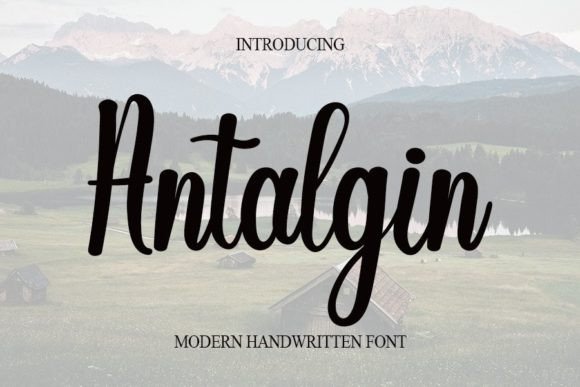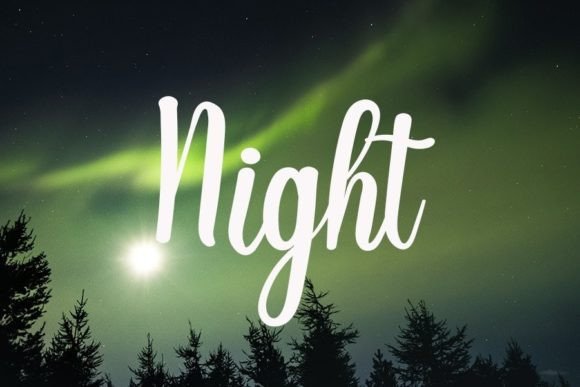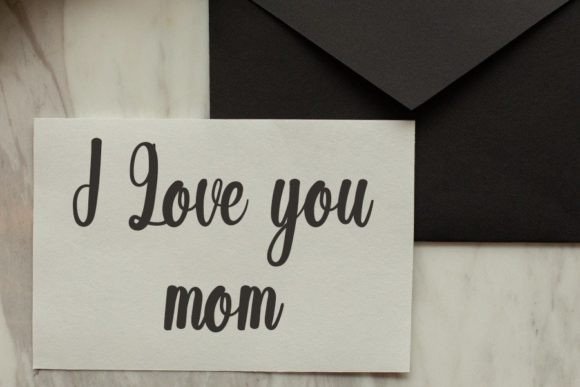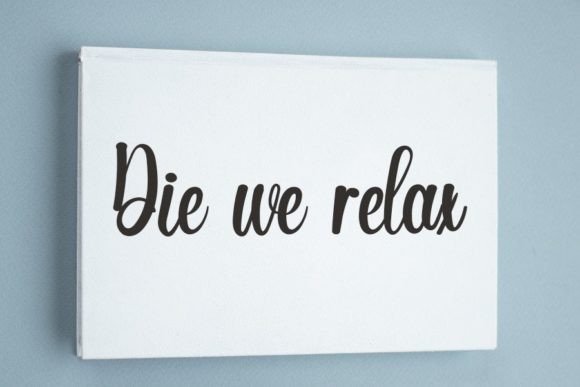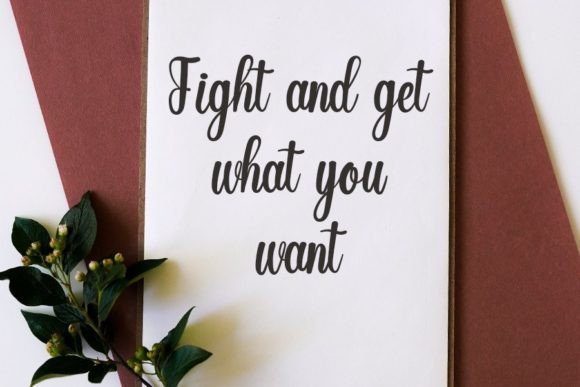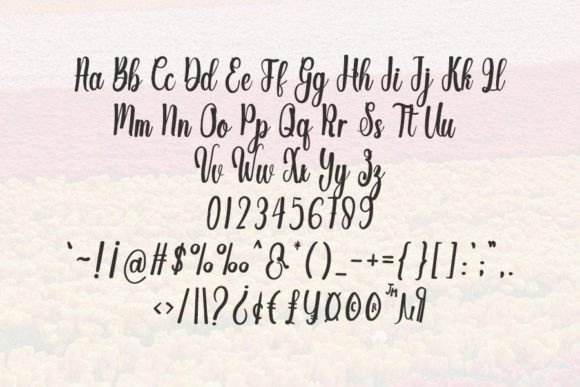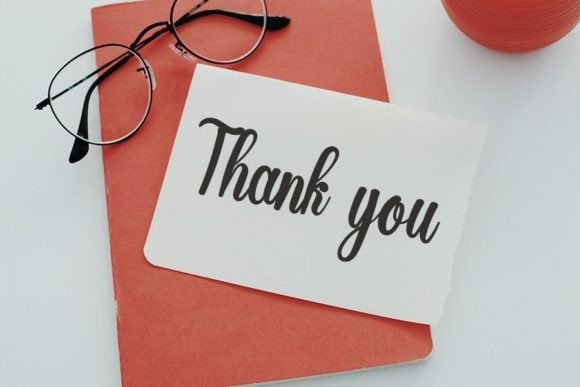
Antalgin Font
About Antalgin Font
“Antalgin” is a sweet and delicate handwritten font that exudes charm and elegance. Its dainty and joyful appearance makes it an ideal choice for various design projects, particularly those requiring a romantic and personalized touch. This font is perfectly suited for crafting wedding invitations, cards, love letters, or any other designs where a touch of romance and warmth is desired.
The font’s delicate strokes and graceful letterforms add a sense of sophistication and tenderness to your text. Its handwritten style gives your designs a personal and intimate feel, making them more heartfelt and meaningful. Whether you’re creating wedding stationery, love notes, or special occasion invitations, “Antalgin” enhances the emotional connection with your audience, creating a sense of intimacy and romance.
The sweetness of “Antalgin” lies in its ability to evoke feelings of love and joy. Its gentle curves and soft lines create a harmonious and pleasing visual experience. The font’s delicate nature adds a touch of elegance and refinement to your designs, making them visually appealing and captivating. “Antalgin” captures the essence of romance, making it a perfect choice for expressing love and affection in your creative projects.
Embrace the sweetness and delicacy of “Antalgin” and let it add a romantic and personalized touch to your designs. Whether used in print or digital media, this font infuses your creations with a sense of love and tenderness. Watch as it transforms your wedding invitations, cards, and heartfelt messages into beautiful expressions of affection and warmth. With “Antalgin,” you can create designs that resonate with emotions, making them memorable and cherished by those who receive them.